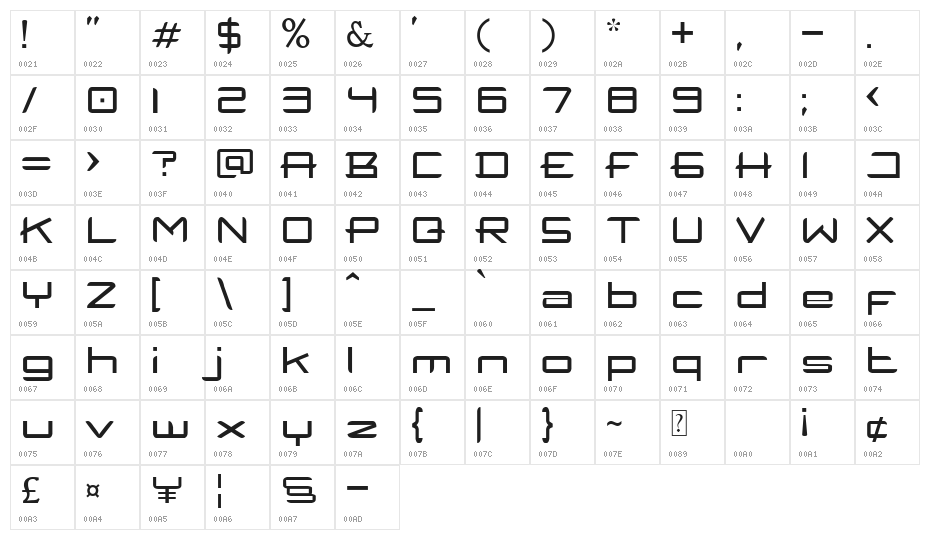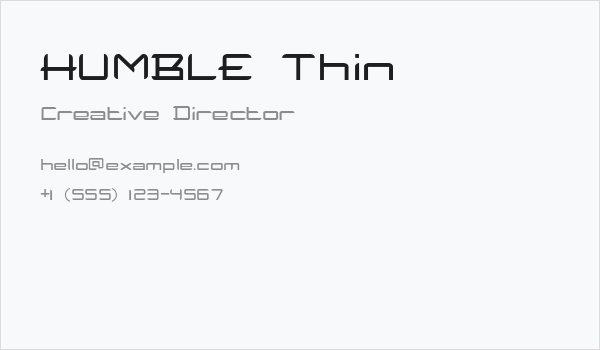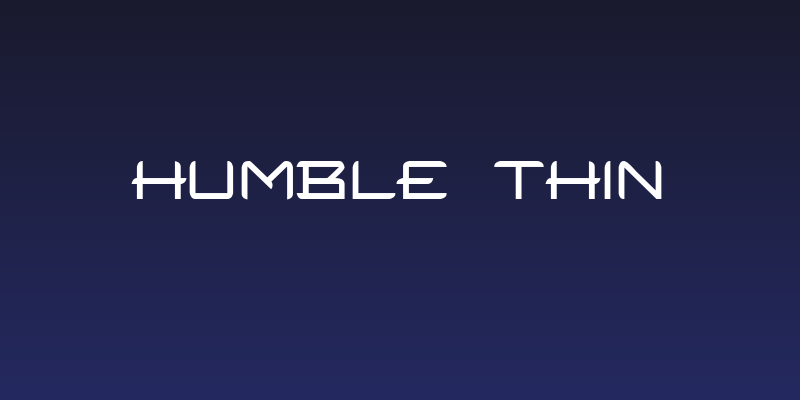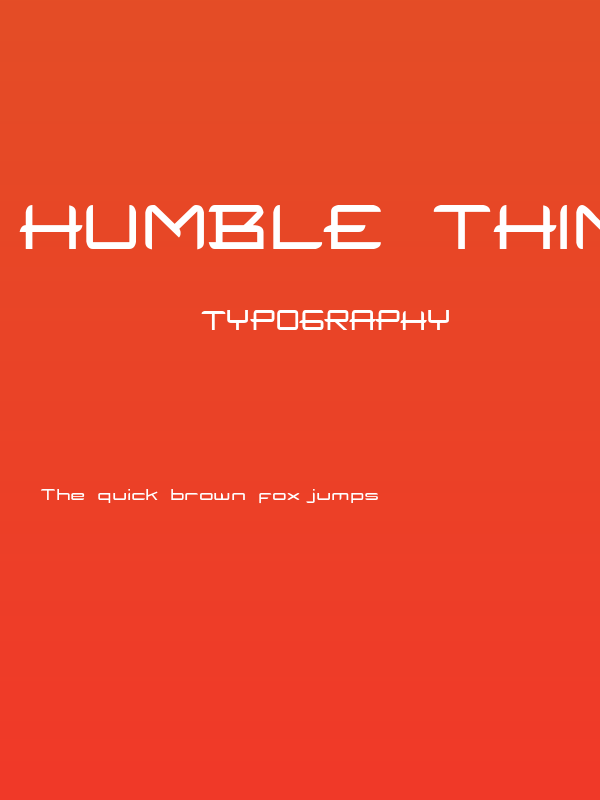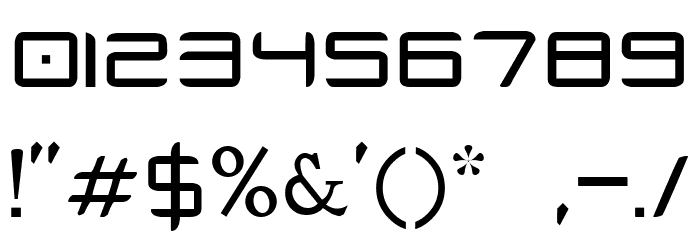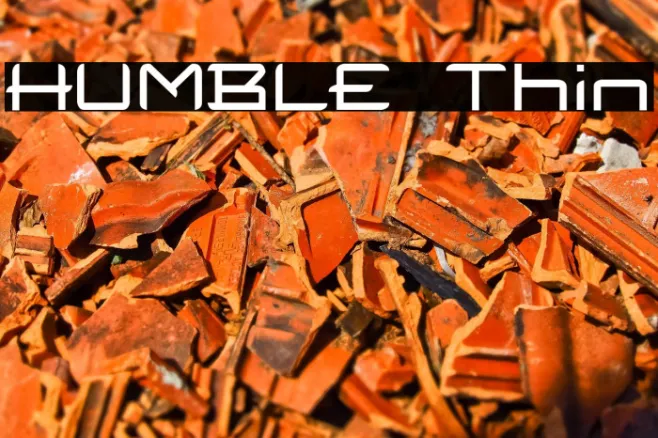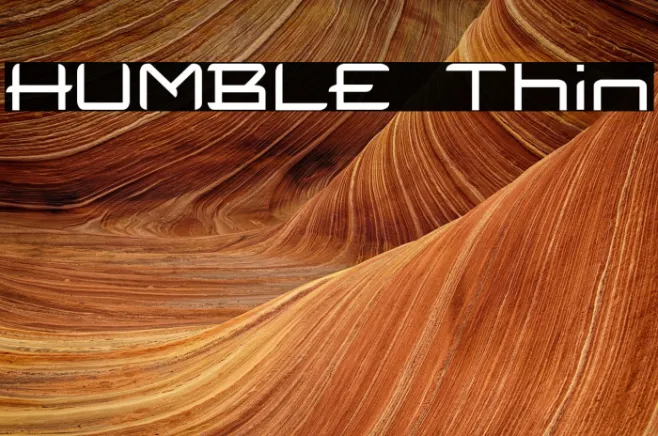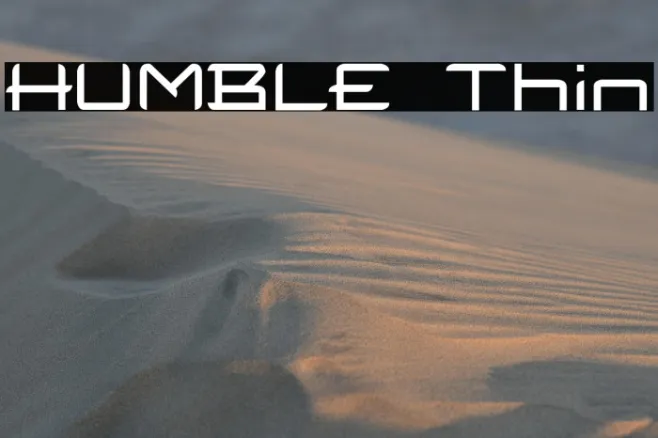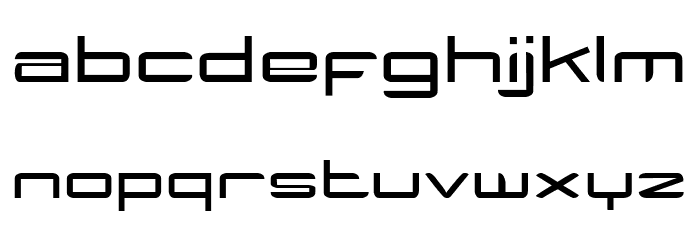
HUMBLE Thin Font
HUMBLE Thin Description
This font features a sleek, modern design with a geometric structure. The characters are composed of straight lines and sharp angles, giving it a futuristic and technical appearance. The uppercase and lowercase letters maintain a consistent height, contributing to a uniform look. The numerals and special characters follow the same design principles, ensuring a cohesive style across all elements. The font's thin weight enhances its elegance, making it suitable for minimalist designs. Its unique style is eye-catching and ideal for projects that require a contemporary and innovative touch.
| Proposed Projects | Ideal for tech branding, modern websites, futuristic posters, and minimalist design projects. |